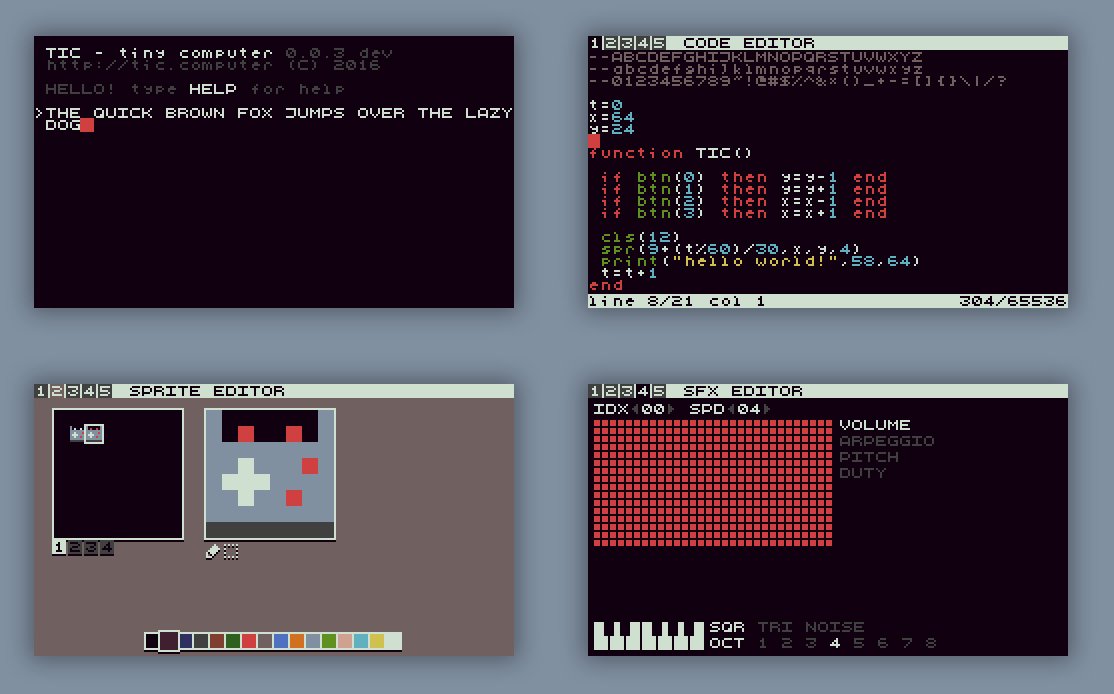
Experimenting with new resolution and font to better code editing
240x136 (6x6 pixel font with lowercase)
160x102 (6x4 pixel font)
I find the new font way less readable, especially the lowercase characters.
My eyes are bleeding on all versions of the font :) but with new font and display resolution we have some advantages like more space for editing, lowercase characters and etc...
I think it's just a matter of habit.
I love the previous version, looks retro cool
Can you release a separate version with the old font and no lowercase?
Unfortunately no, it's difficult to support both versions with different fonts.
I like old version too but most of people voted for the new 6x6 font https://twitter.com/tic_computer/status/7883145997... :)